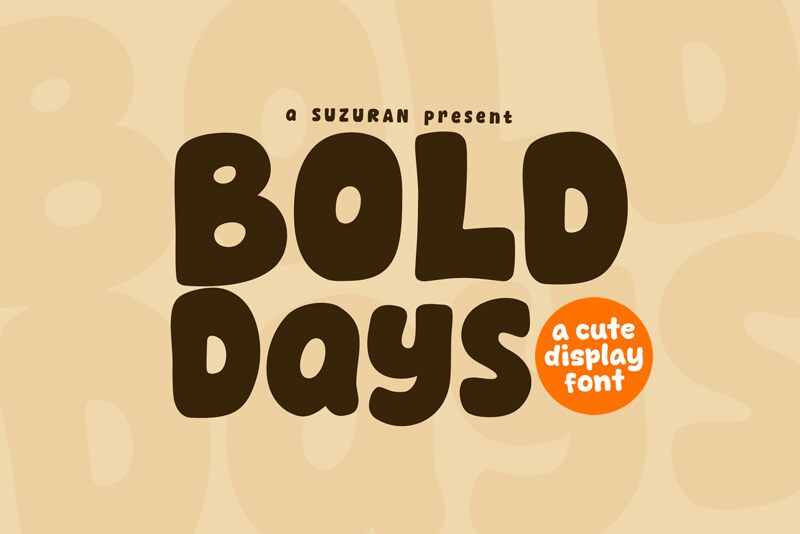
Bold Days
Bold Days font is a free display font with cartoon style by Khurasan. It’s retro-inspired, friendly, and casual, with bold rounded characters that don slightly condensed silhouettes. With no sharp corners or edges to communicate its approachability, the font is just as dynamic as it is chunky.